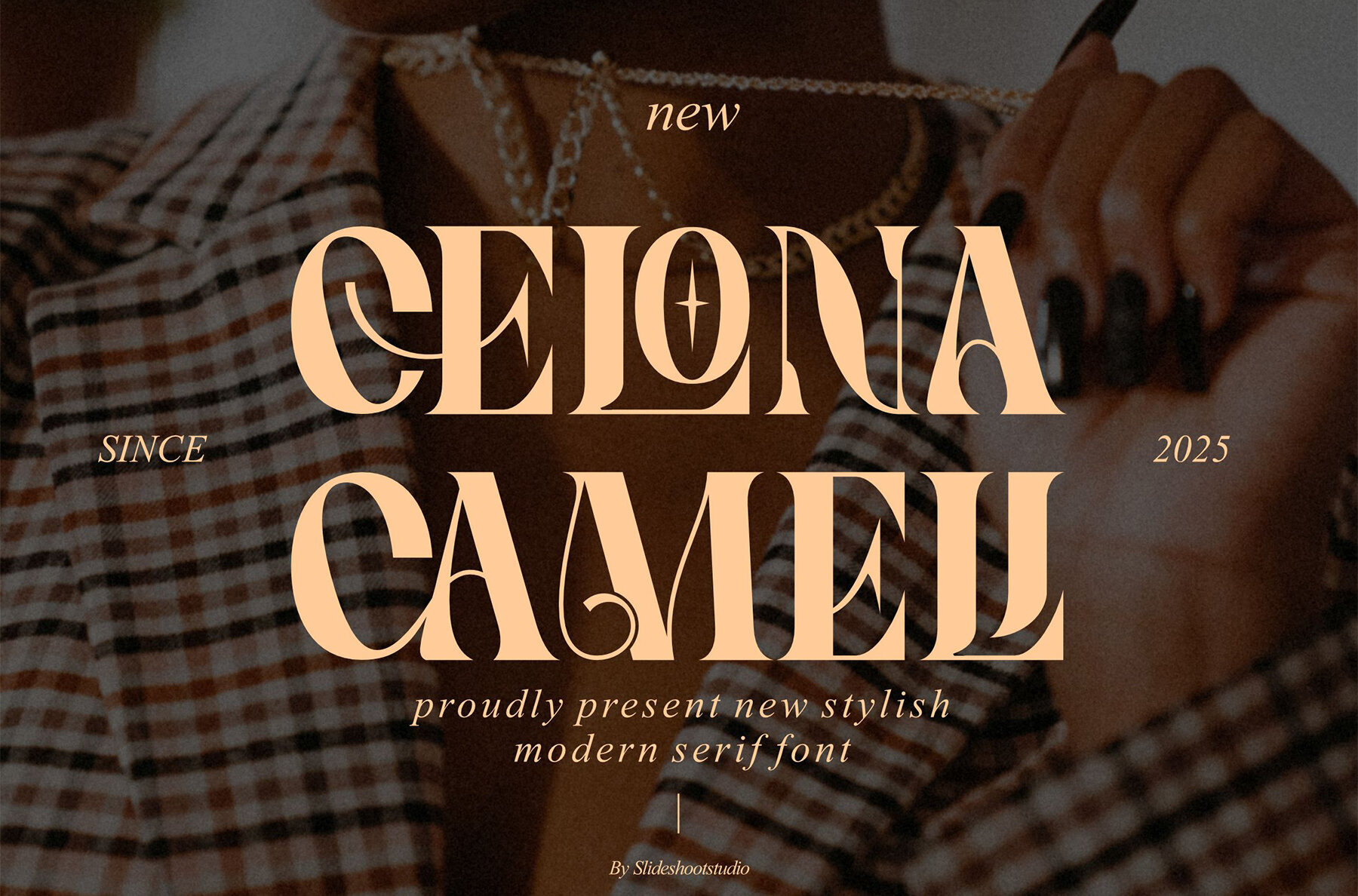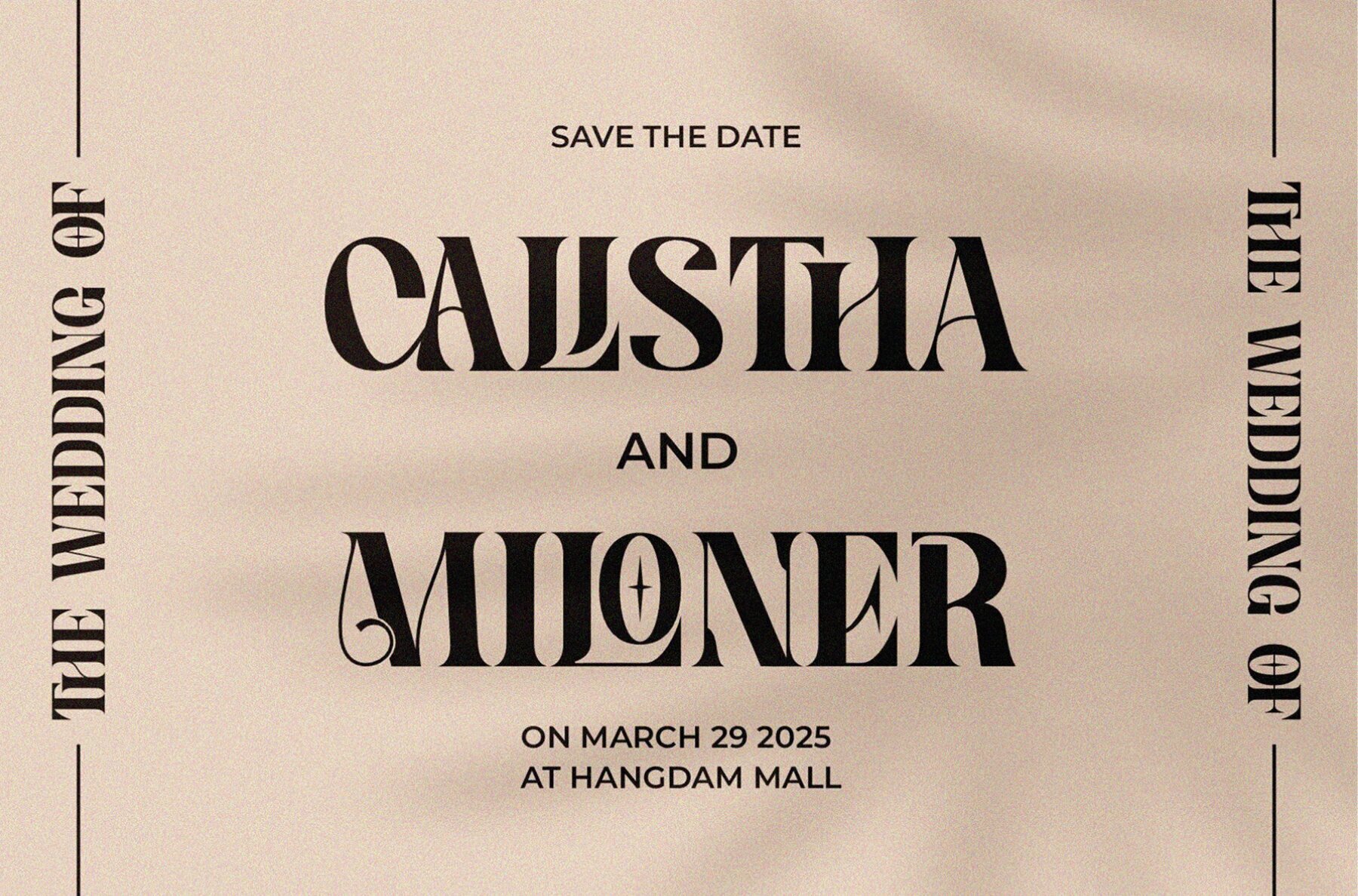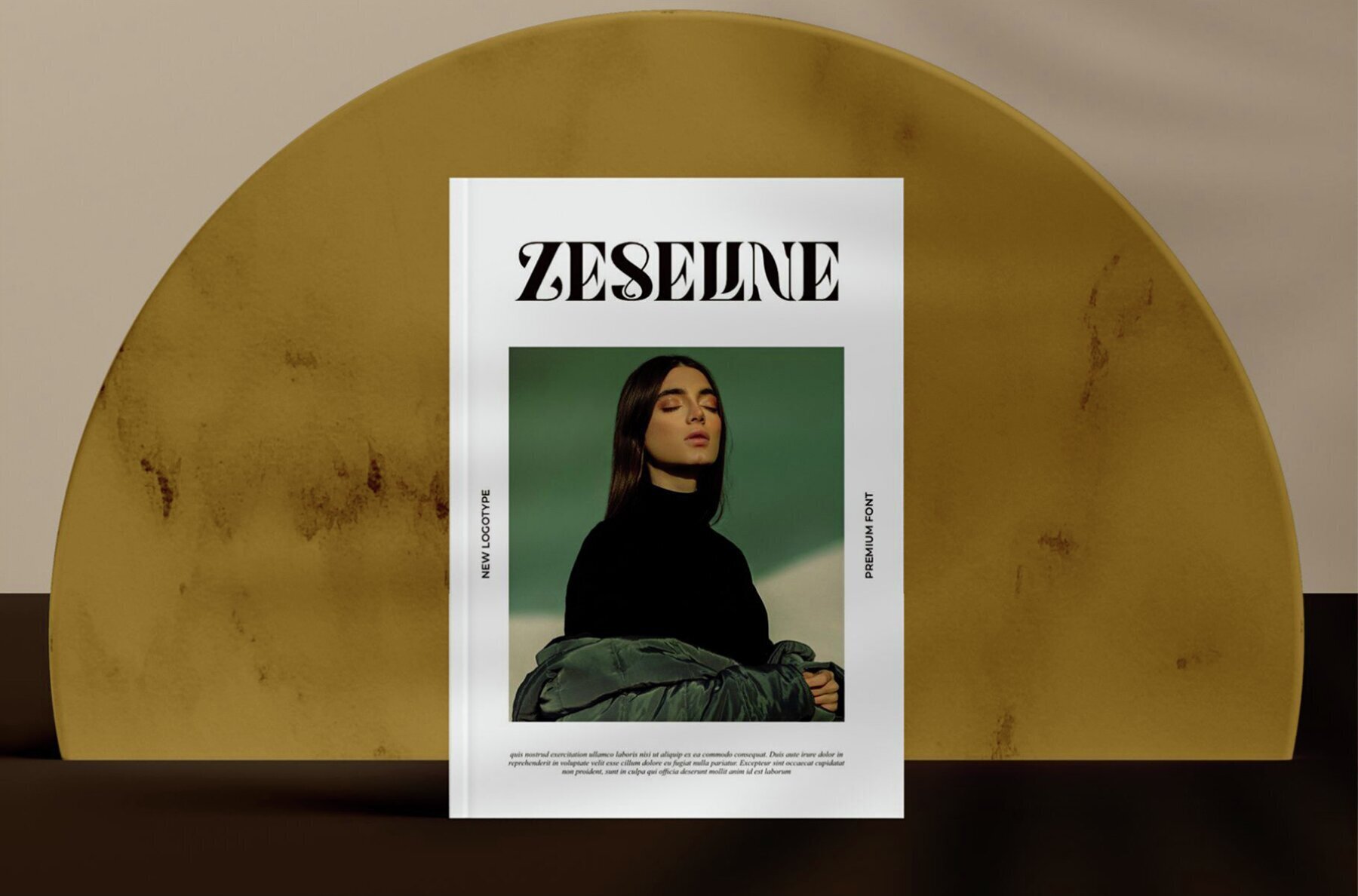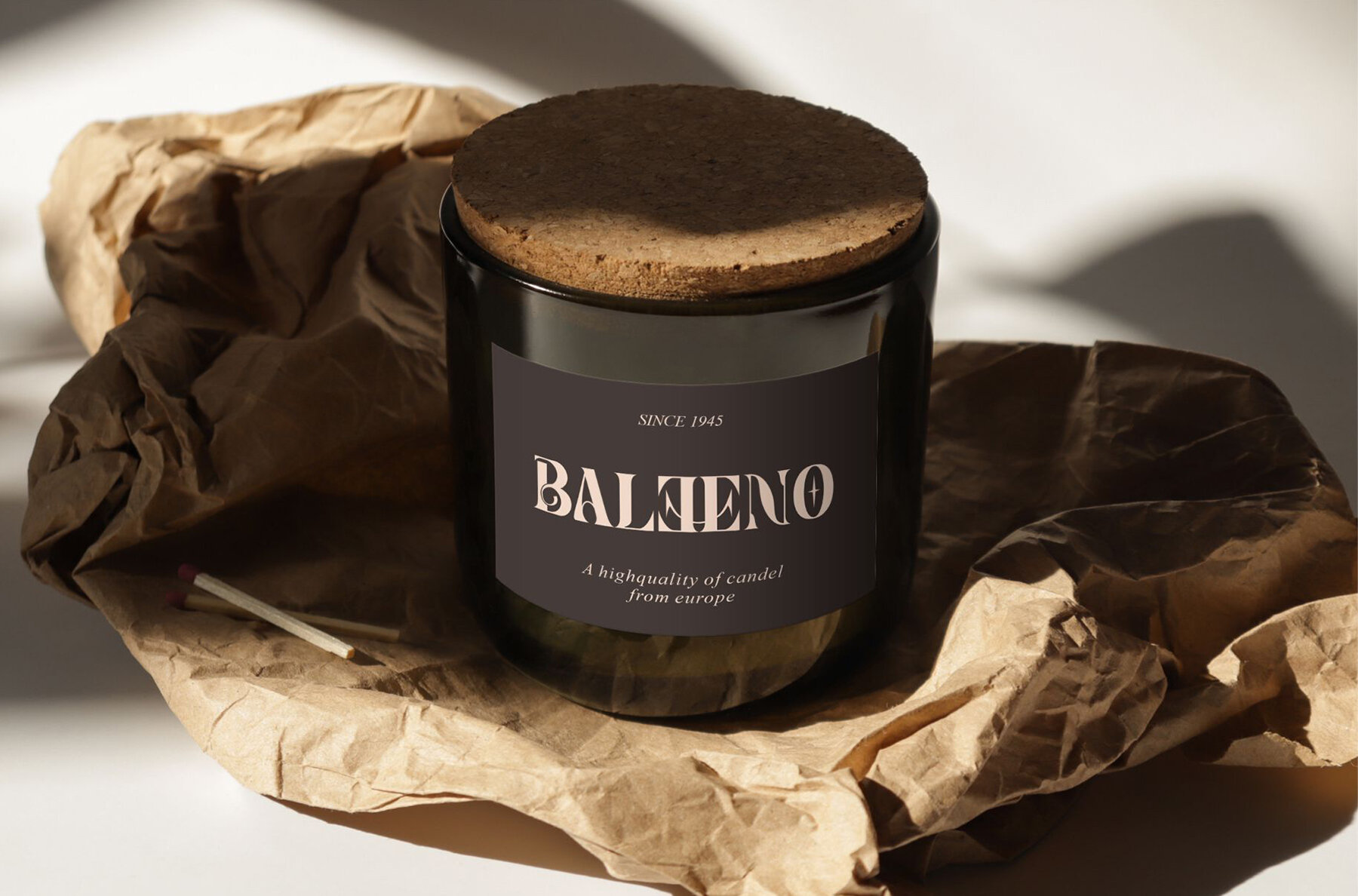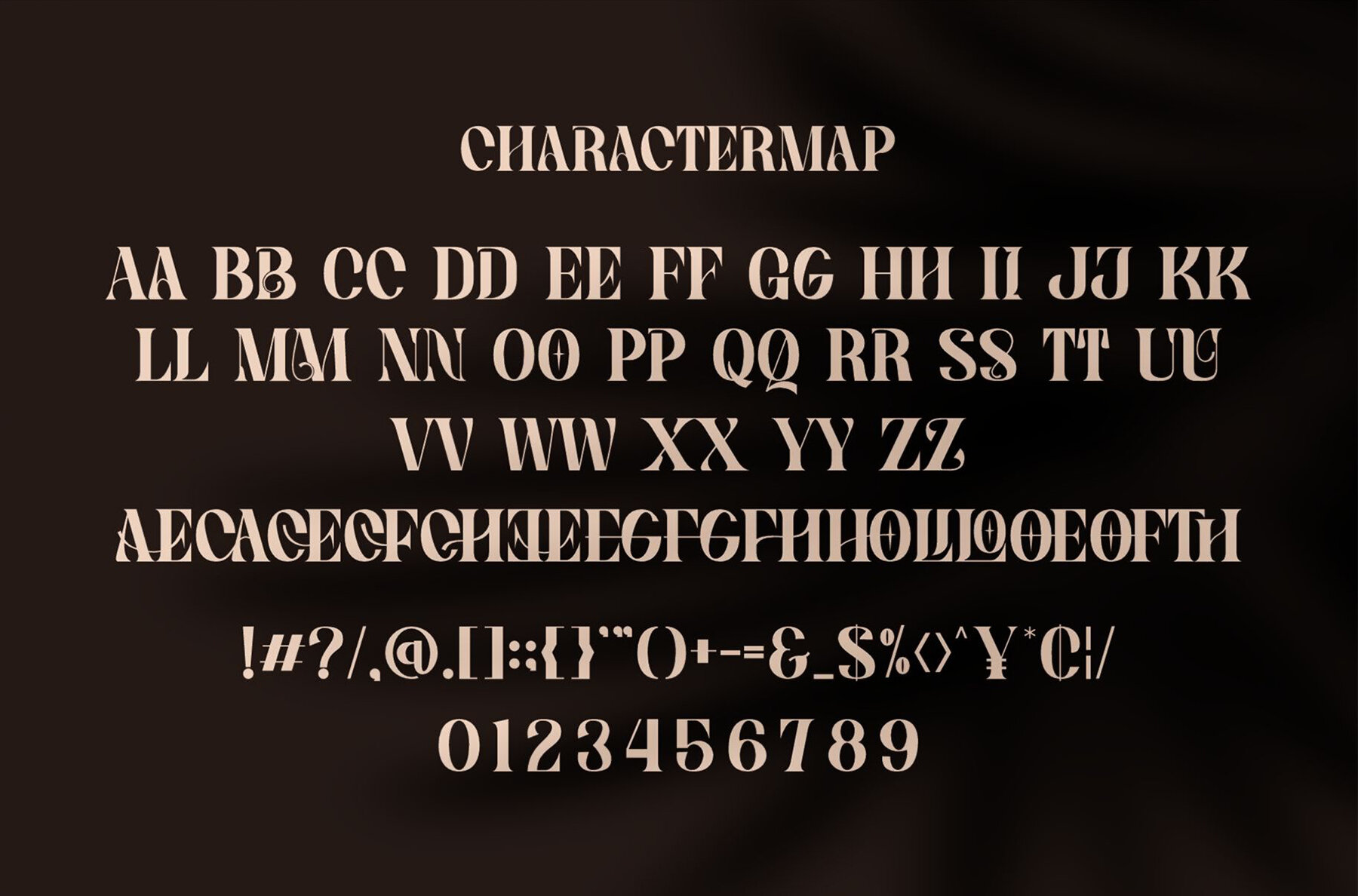
Celona Cameli Font
Celona Cameli
Meet Celona Cameli, a contemporary serif font that's both trendy and exuberant, with a touch of whimsy. Its distinctive wood-themed character makes it an ideal choice for invitation card designs, company logos, movie titles, business cards, book titles, and brand names. Whether you're crafting a sophisticated wedding invitation or a bold corporate identity, Celona Cameli brings a unique flair to your creative projects.Celona Cameli Serif Font